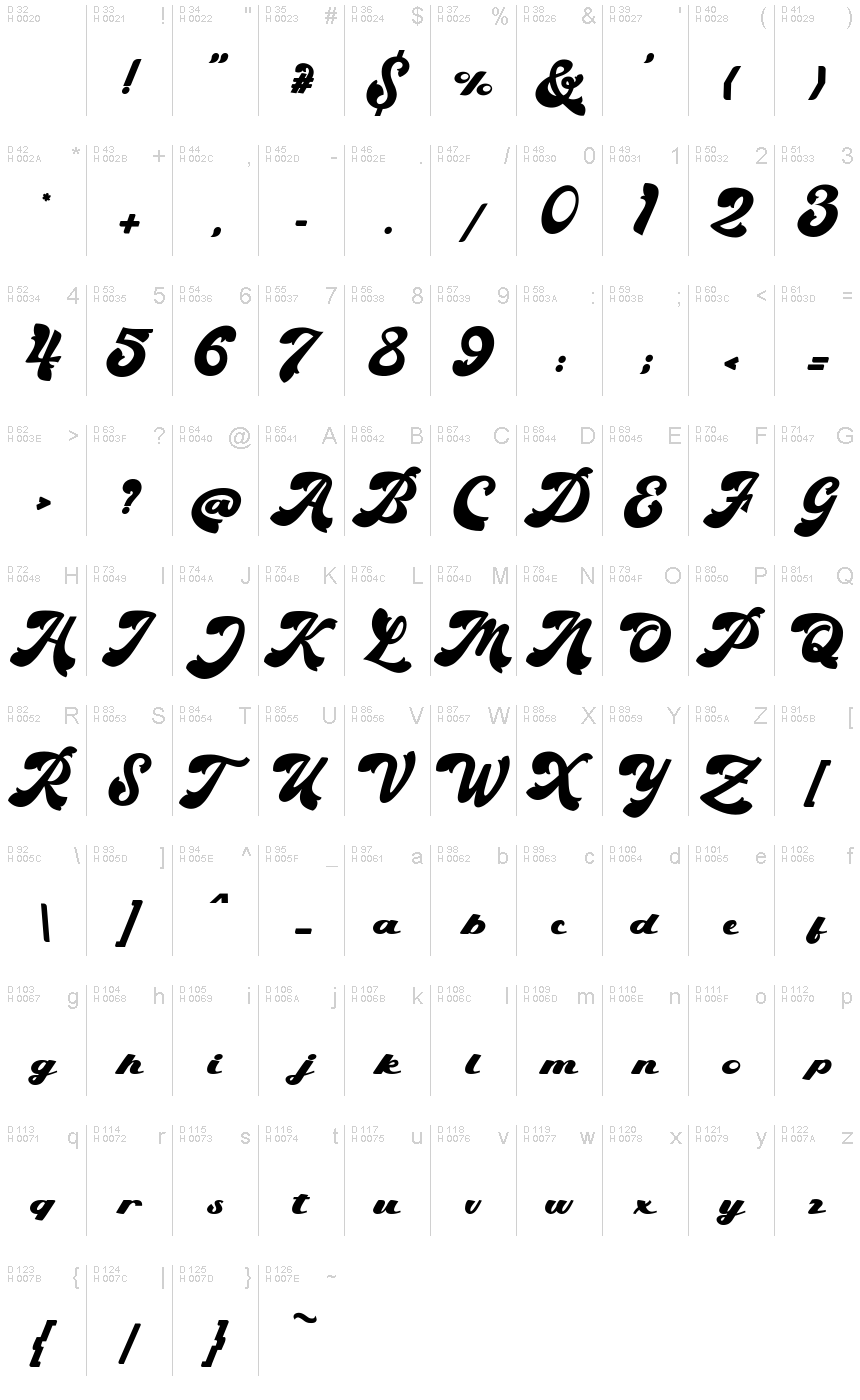
Royal Banks
Royal Banks captivates with its bold old school script, evoking a sense of timeless elegance and sophistication. Its sweeping curves and distinctive flair create an aesthetic that is both luxurious and inviting, making it a standout choice for any design project. The font's confident strokes and remarkable presence draw the eye, while its playful character lends a touch of nostalgia.
Ideal for branding, event invitations, or high-end packaging, Royal Banks effortlessly blends tradition with modernity. This striking typeface enhances any visual medium with elegance and charm, ensuring that your message resonates memorably. Whether you're aiming for classic appeal or contemporary flair, Royal Banks is the perfect match to elevate your creative endeavors.